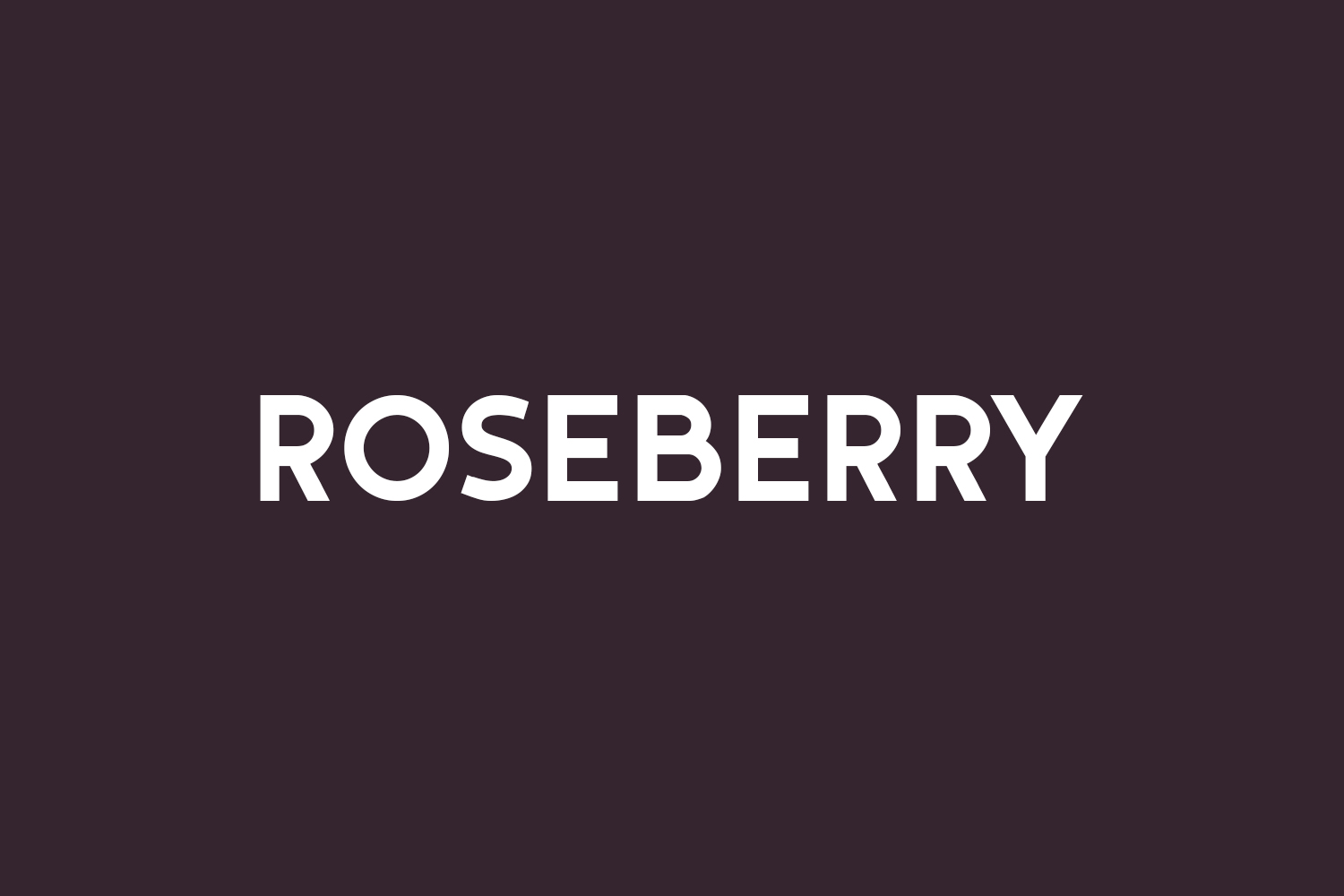
Roseberry Free Font is a sans-serif typeface designed by Vladimir Nikolic. The font features clean lines and a modern design that is both elegant and legible.
The font’s minimalist and modern design is well-suited for branding and logo design, as well as for use in editorial design, web design, and advertising. The font’s large x-height and wide spacing make it highly readable even at small sizes, while its bold weight is perfect for headlines and titles.